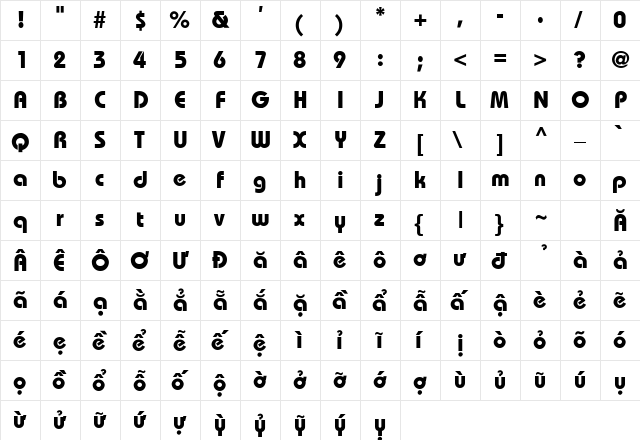
.VnBahamasB Bold
Design Context for .VnBahamasB Typeface
.VnBahamasB takes a measured approach to typography — its balanced proportions and neutral character make it a reliable workhorse for both digital and print work. Its bold stroke weight gives it real presence on the page.
Pro Tip: Pair .VnBahamasB with a font of contrasting weight or personality to build a more expressive typographic hierarchy.